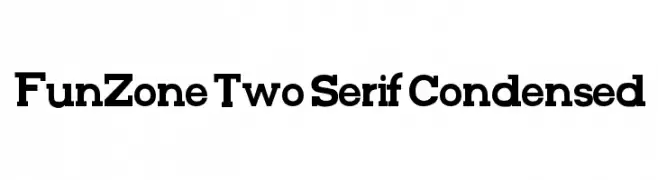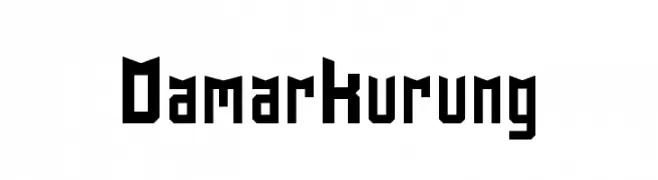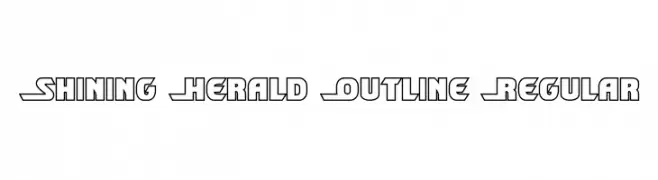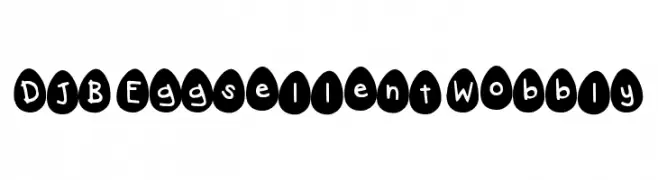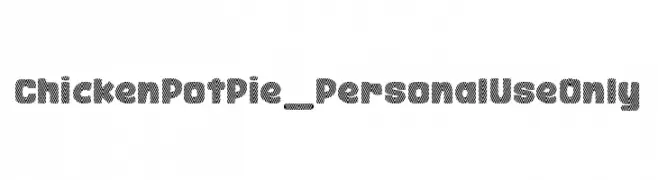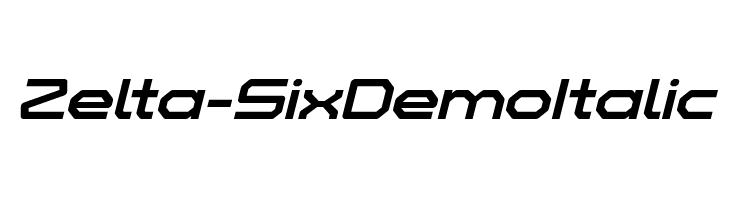
A bold, condensed serif font with high contrast, perfect for impactful headlines.
A futuristic, geometric font with double lines and angular shapes.
A bold, dynamic script font with a handwritten style and elegant flow.
A bold, geometric font with sharp angles and a modern, industrial feel.
A bold, modern sans-serif font with clean lines and strong presence.
A modern, geometric sans-serif font with clean lines and balanced proportions.
A dynamic, brush-stroke font with a rough, hand-drawn appearance.
A bold, outlined font with a modern, geometric style.
A playful, egg-shaped font with a hand-drawn, whimsical style.
A bold, decorative font with diagonal stripe patterns for a dynamic look.